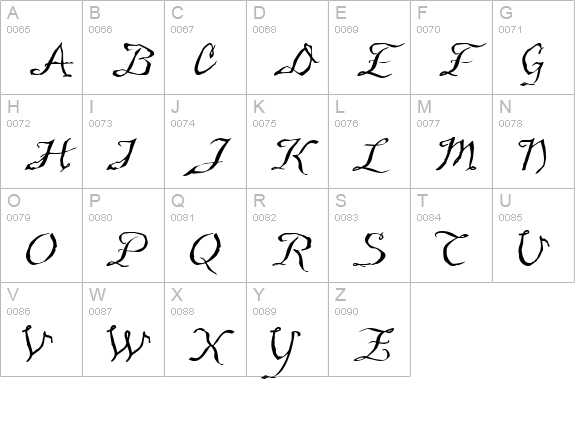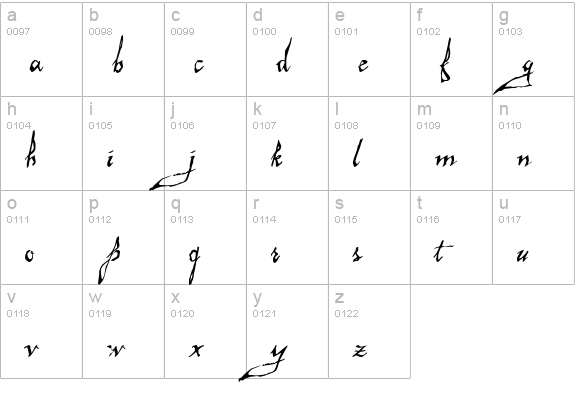
Malagua Demo Font Details
Introducing the Malagua Demo font, a stunning typeface that effortlessly combines elegance with a touch of playfulness. This versatile font is perfect for adding a unique and eye-catching flair to your designs. With its bold and charismatic letterforms, Malagua Demo is sure to captivate and engage your audience. Whether you're designing a logo, creating a poster, or crafting a memorable headline, this font will make a lasting impression. The beauty of Malagua Demo lies not only in its impeccable design but also in the fact that it is free for personal use. Yes, that's right, you can download this incredible font for absolutely no cost at FontsMarket.com. With its wide range of ligatures, alternate characters, and stylistic variations, Malagua Demo offers endless possibilities for customization. Let your creativity soar as you explore the different ways in which you can utilize this font to bring your visions to life. Whether you're a professional designer or a casual enthusiast, Malagua Demo is a must-have addition to your font collection. Its versatility, elegance, and playful charm make it the perfect choice for a wide range of projects. So why wait? Go ahead and download Malagua Demo today, and elevate your designs to a whole new level. Remember, it's freely available at FontsMarket.com, so you can start using it right away without any restrictions. Embrace the beauty and creativity that this font embodies, and let your imagination run wild.